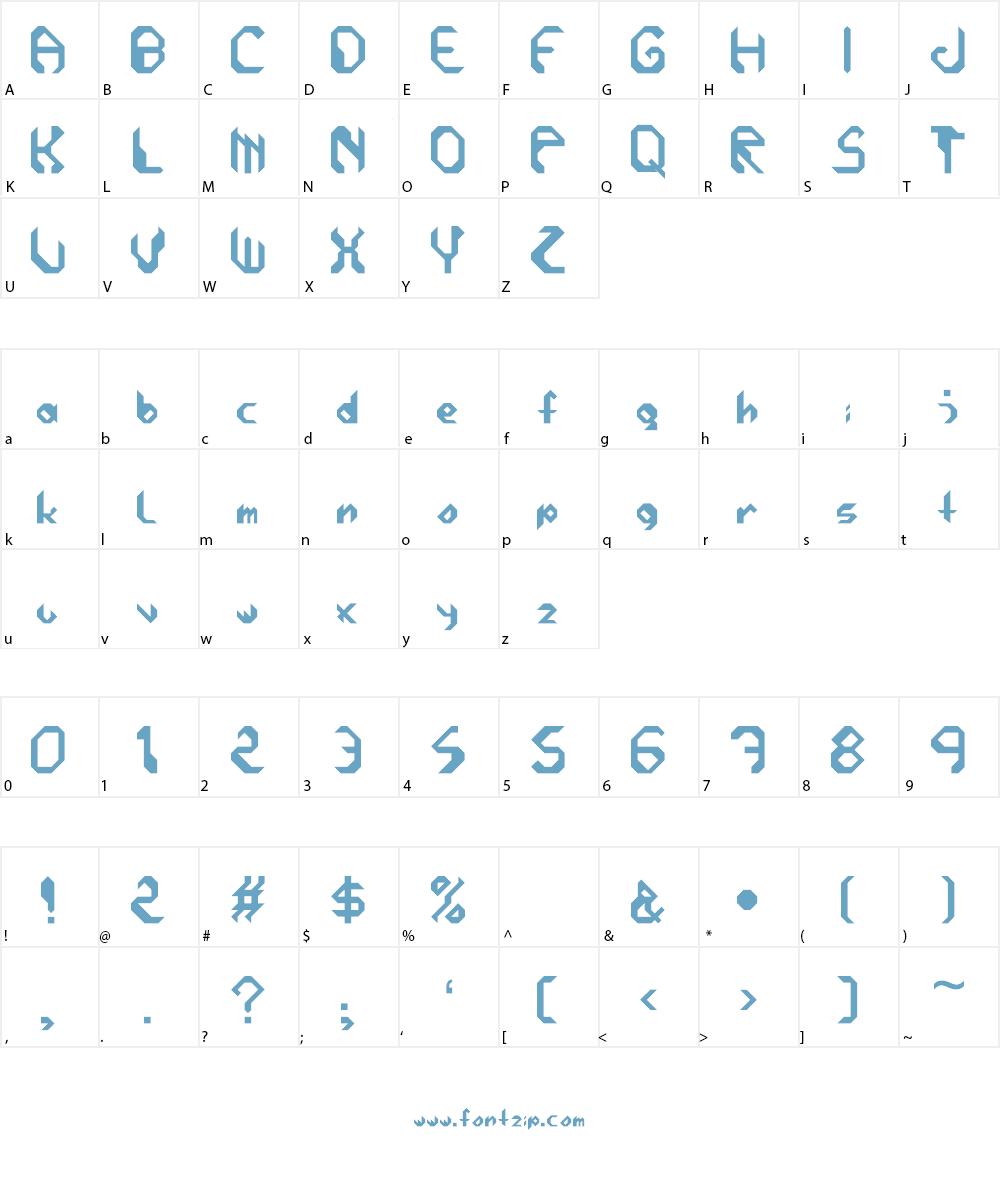
The first font I finished. I made it so I can use it in games I make. This is simple version so its bold.
Ill add some details and make it normal version of sci-fi font i like.
08.18.13 Edit: Updated font with fixed version!